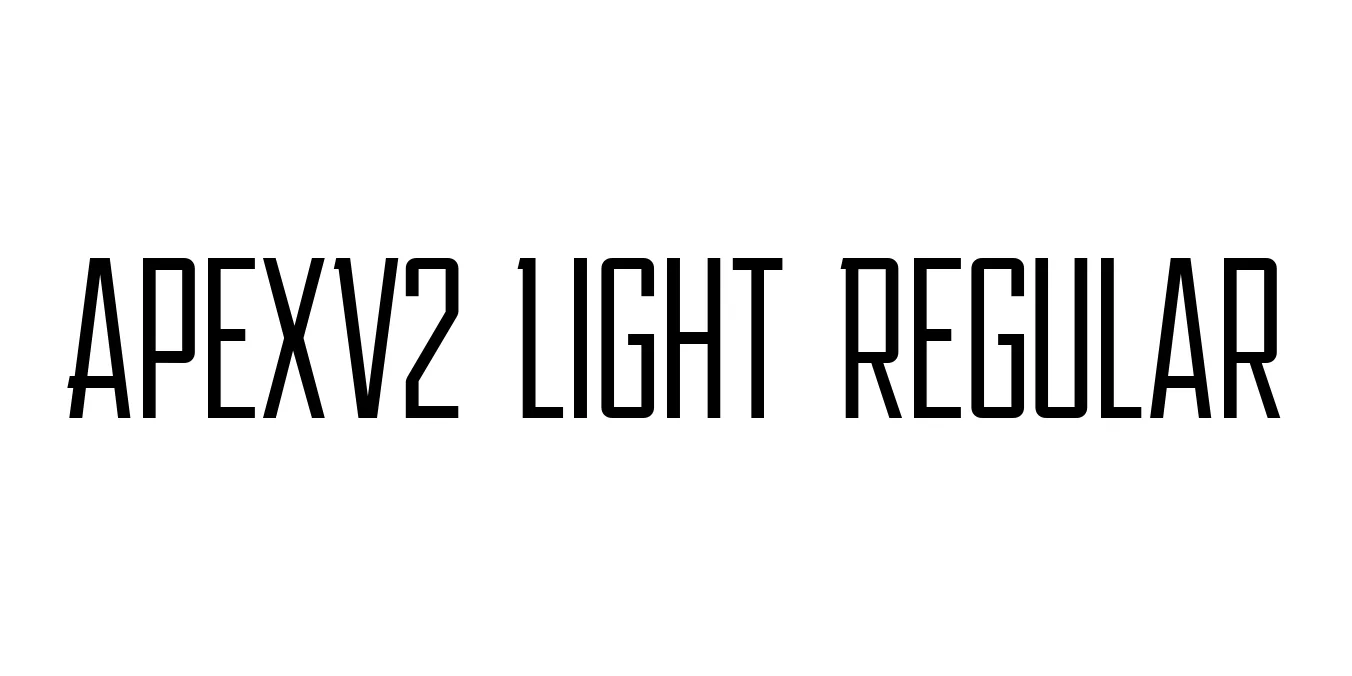
ApexV2 Light Regular
Designed by Jeremy Nelson
ApexV2 Light Regular is a contemporary sans-serif typeface designed with a focus on geometric precision and clarity. It represents an evolution of modular design, stripping away unnecessary embellishments to provide a clean, high-tech aesthetic. The light weight specifically emphasizes thin, elegant strokes that maintain readability while offering a sophisticated, airy feel suitable for modern digital interfaces and minimalist print layouts.
This typeface was developed to bridge the gap between industrial utility and artistic minimalism. By utilizing a grid-based structure, ApexV2 Light Regular ensures consistency across various character sets, making it a reliable choice for architects, tech startups, and editorial designers. Its wide tracking and open apertures allow it to perform exceptionally well in large-scale display settings, where its subtle curves and sharp angles can truly shine without overwhelming the viewer.
ApexV2 Light Regular Best Uses
Minimalist hero sections and clean navigation menus.
Modern logo design and corporate identity for tech firms.
High-end fashion magazines or architectural journals.
Legible labels for applications with a light aesthetic.